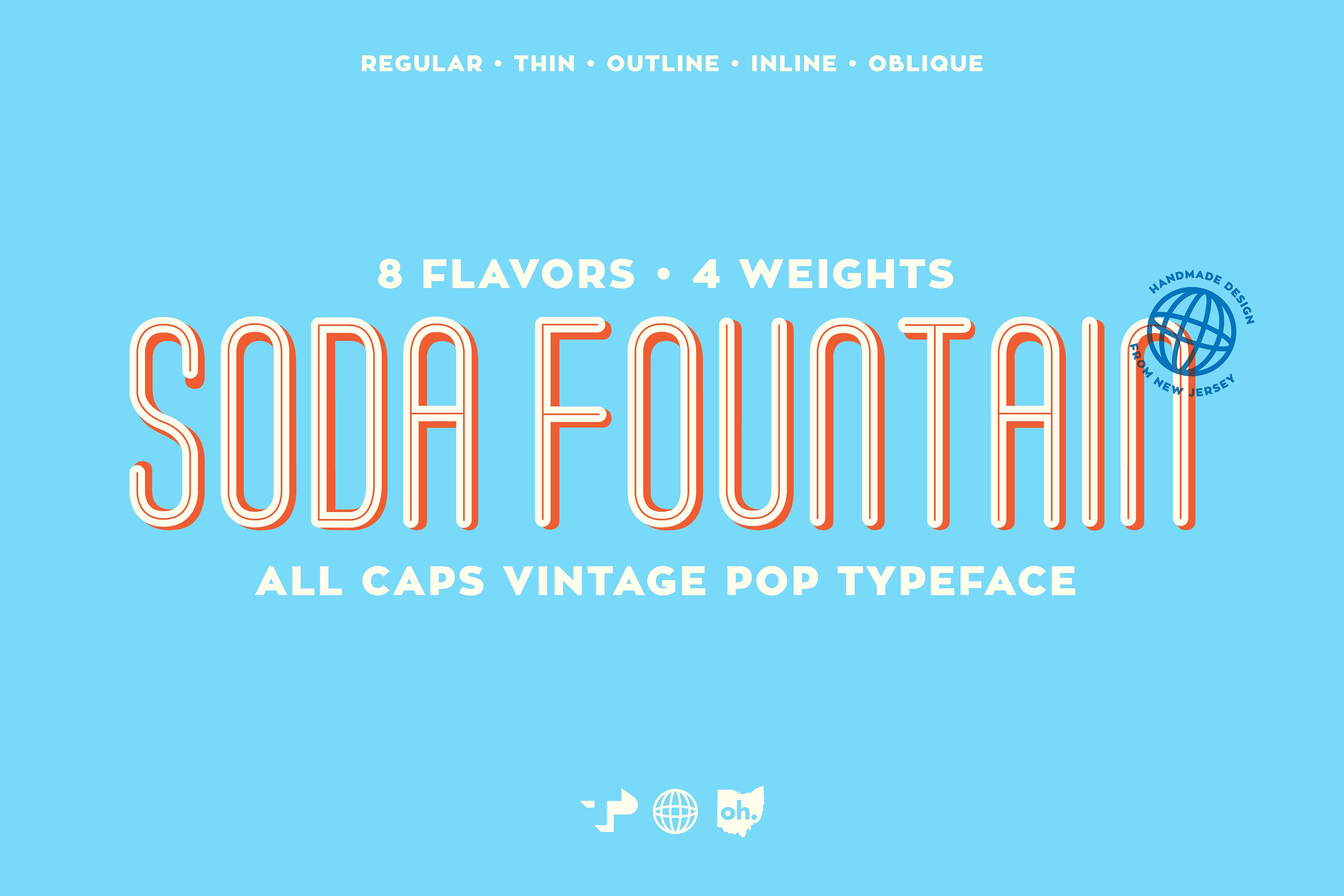
Soda Fountain Typeface
THE SAME FONT YOU LOVE, WITH A NEW LOOK
Soda Fountain is an all caps, vintage, sans-serif typeface. Inspired by typography found within diners of the 1950's, Soda Fountain emulates a vintage style that is sure to make your projects burst with flavor! Soda Fountain is as smooth as a soft drink, with enough flavor to use in all of your projects. This typeface contains eight fizzing flavors: Regular, Oblique, Outline Oblique, Inline Oblique, Thin, & Thin Oblique. Soda Fountain is most suitable for headlines, but will work with nearly anything you design that needs a smooth, vintage feeling.